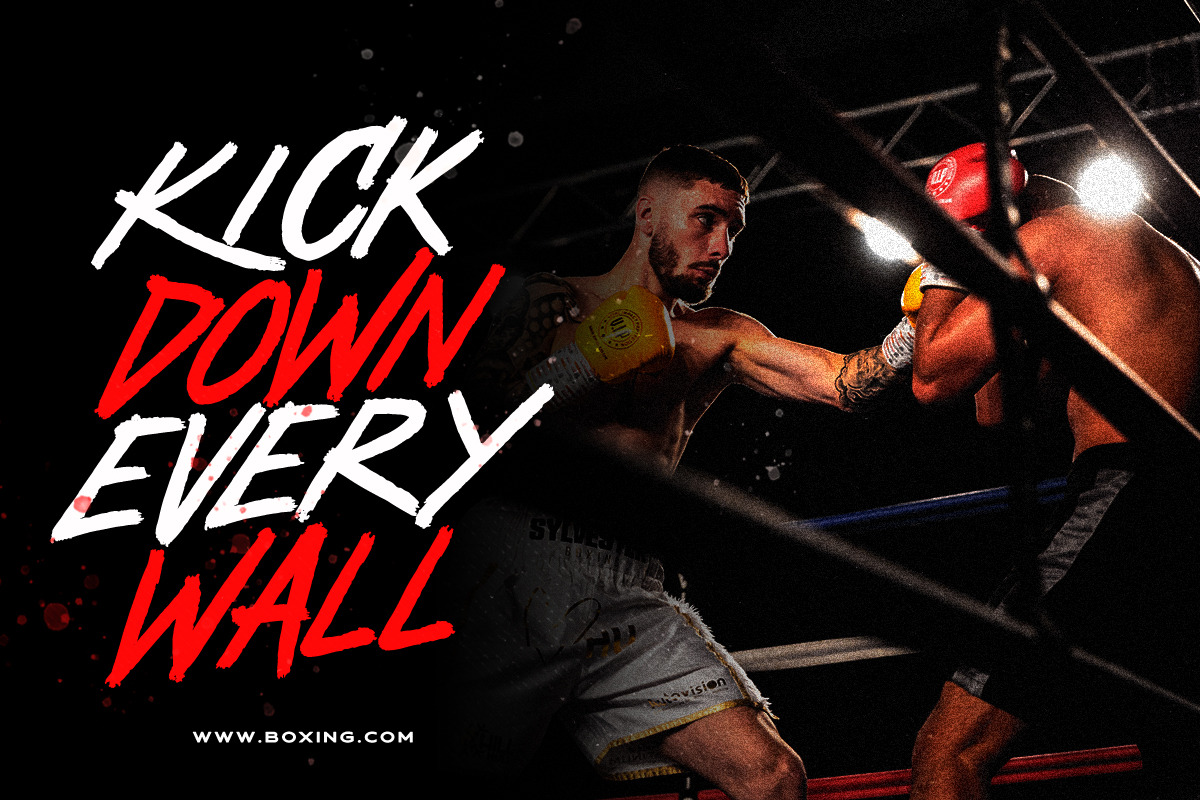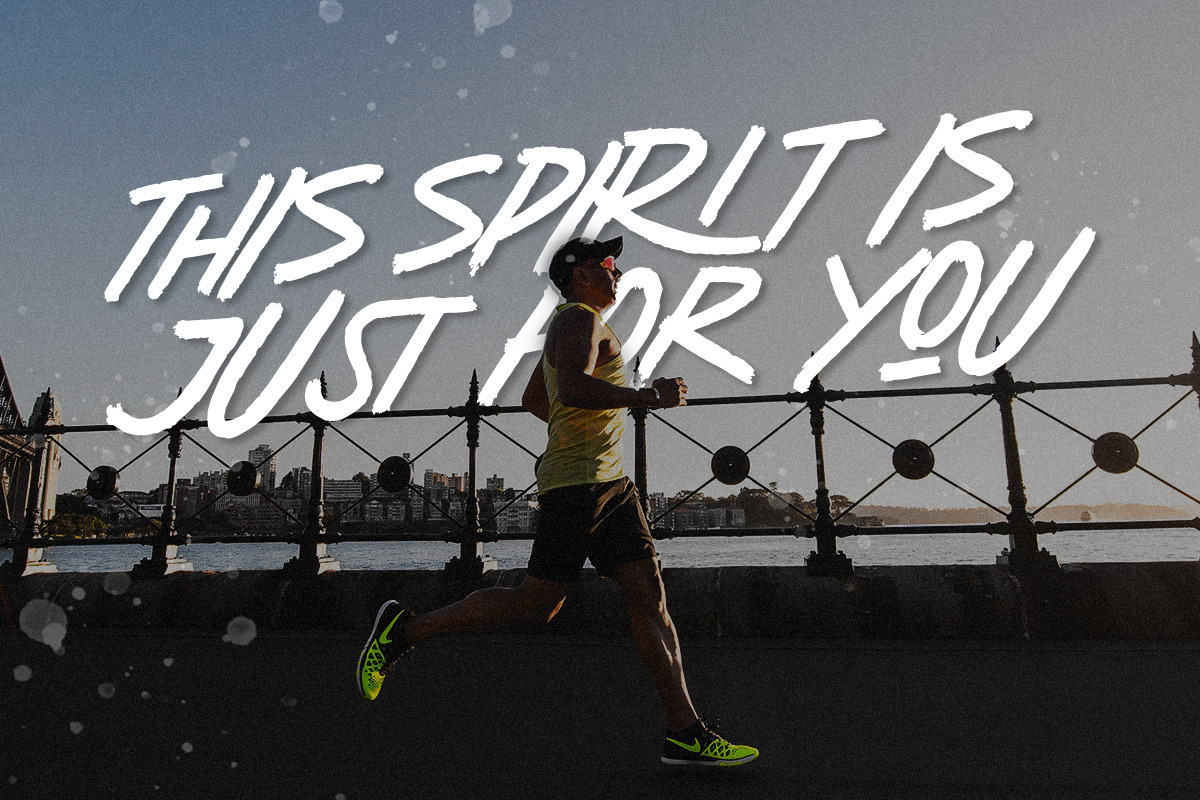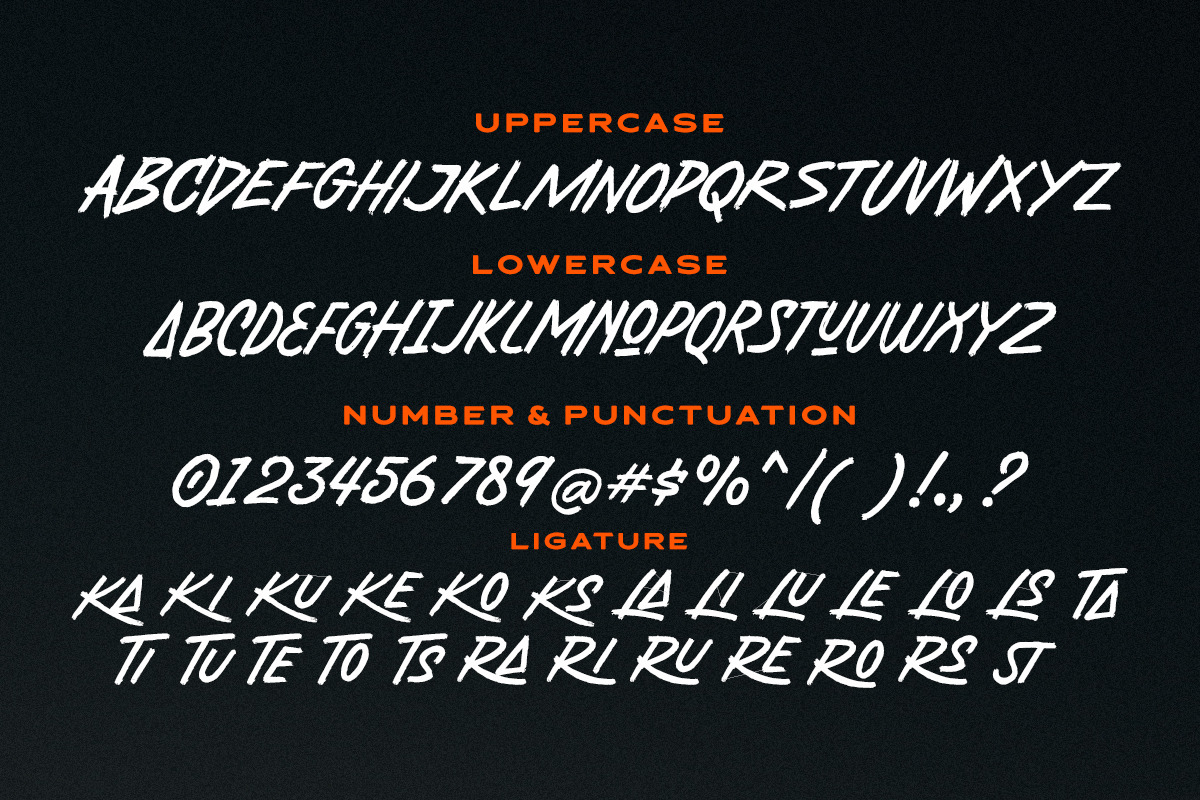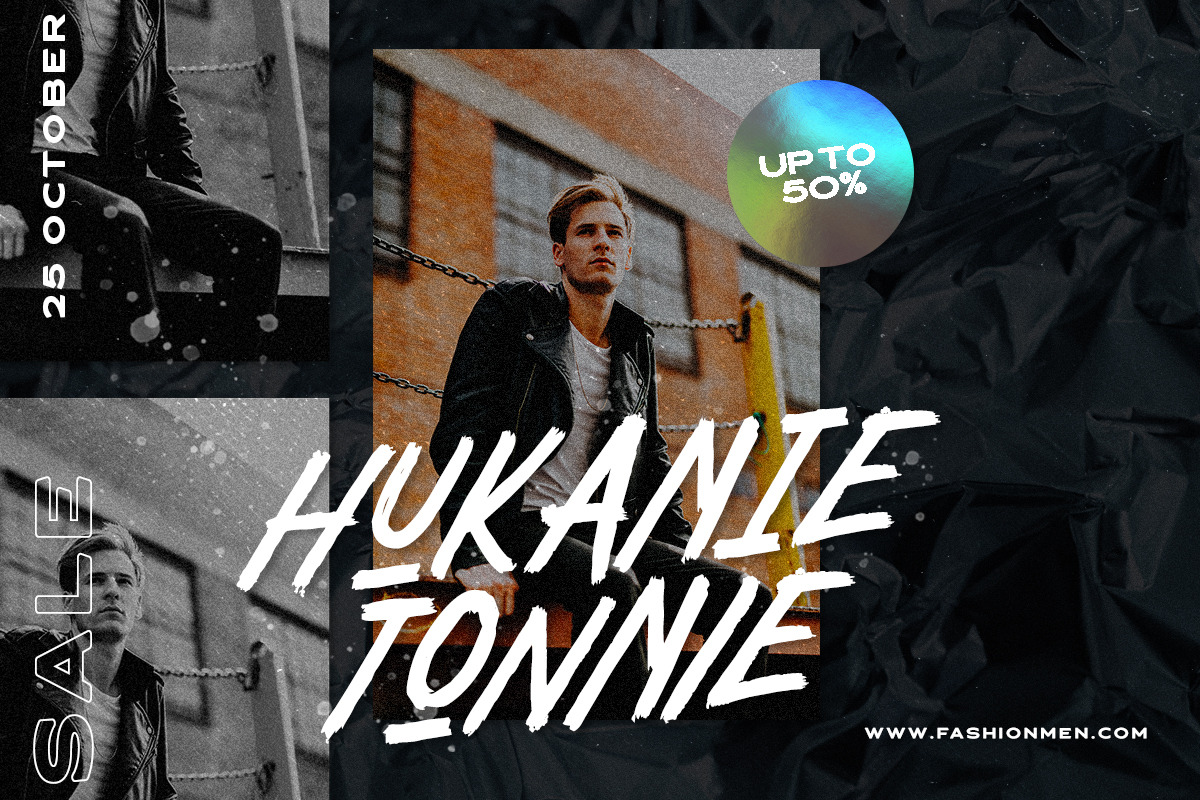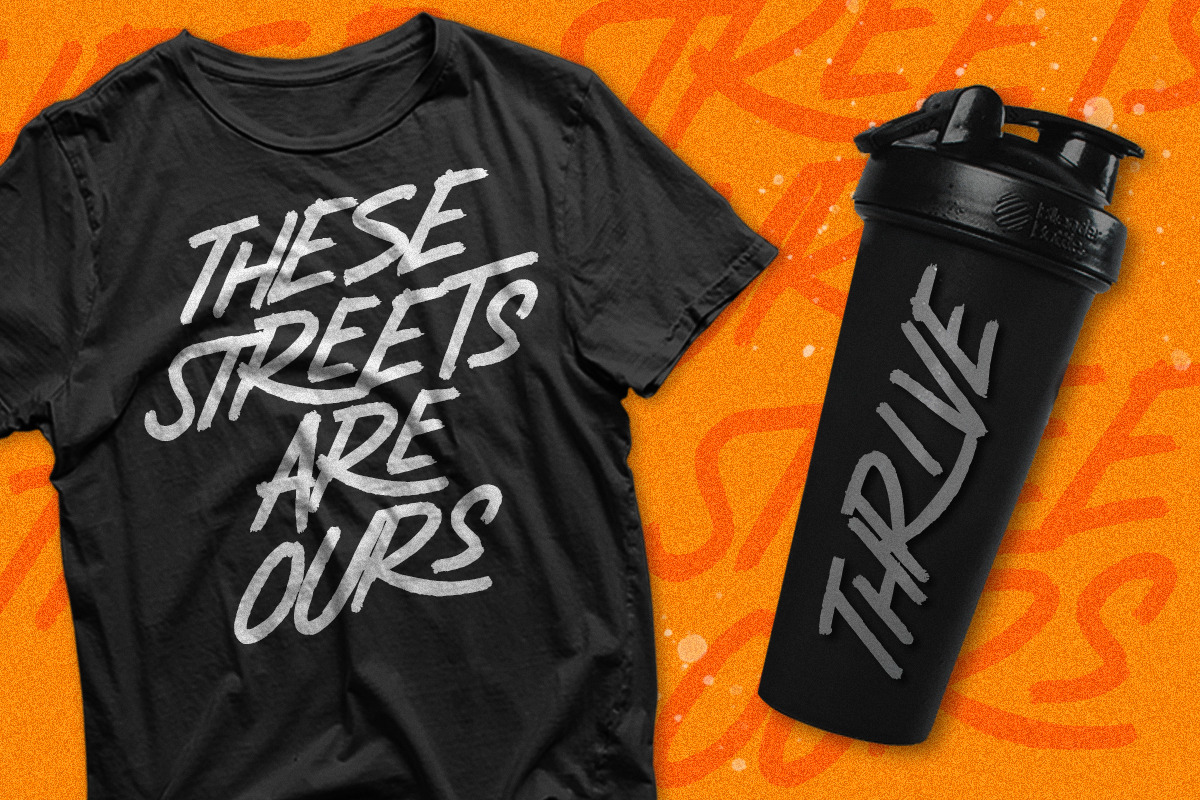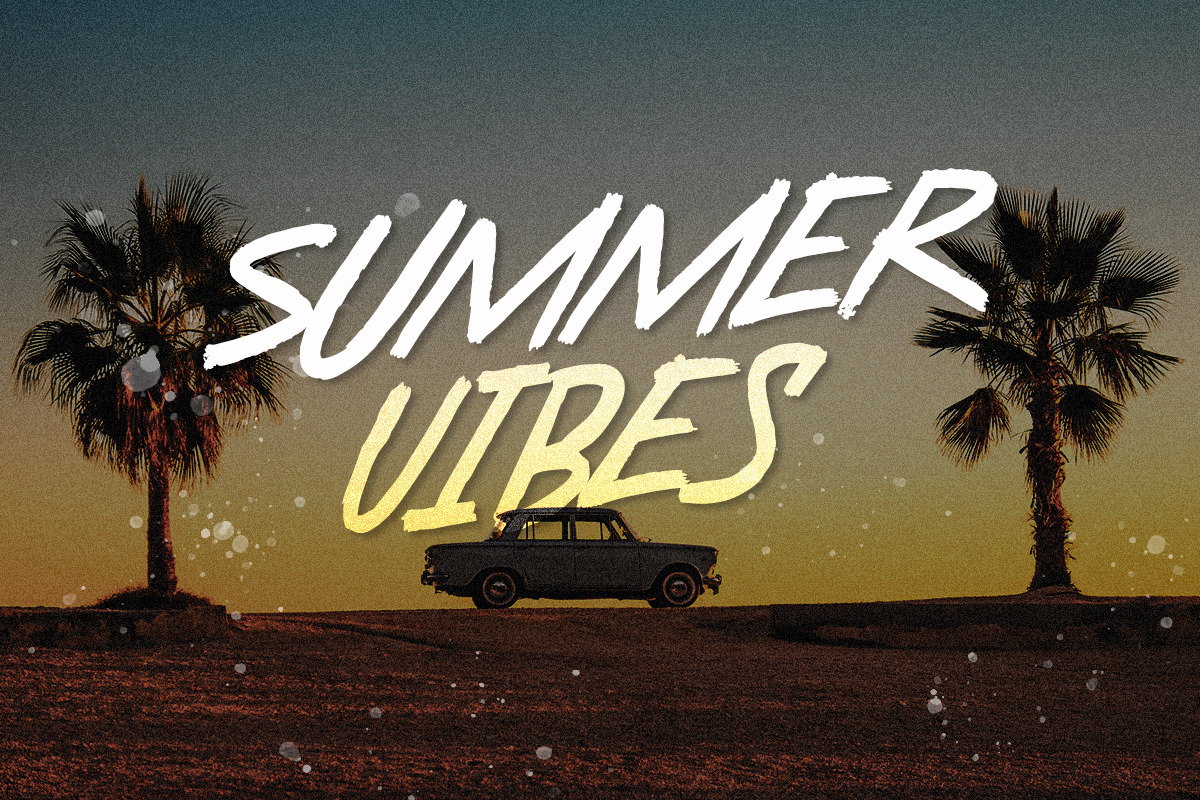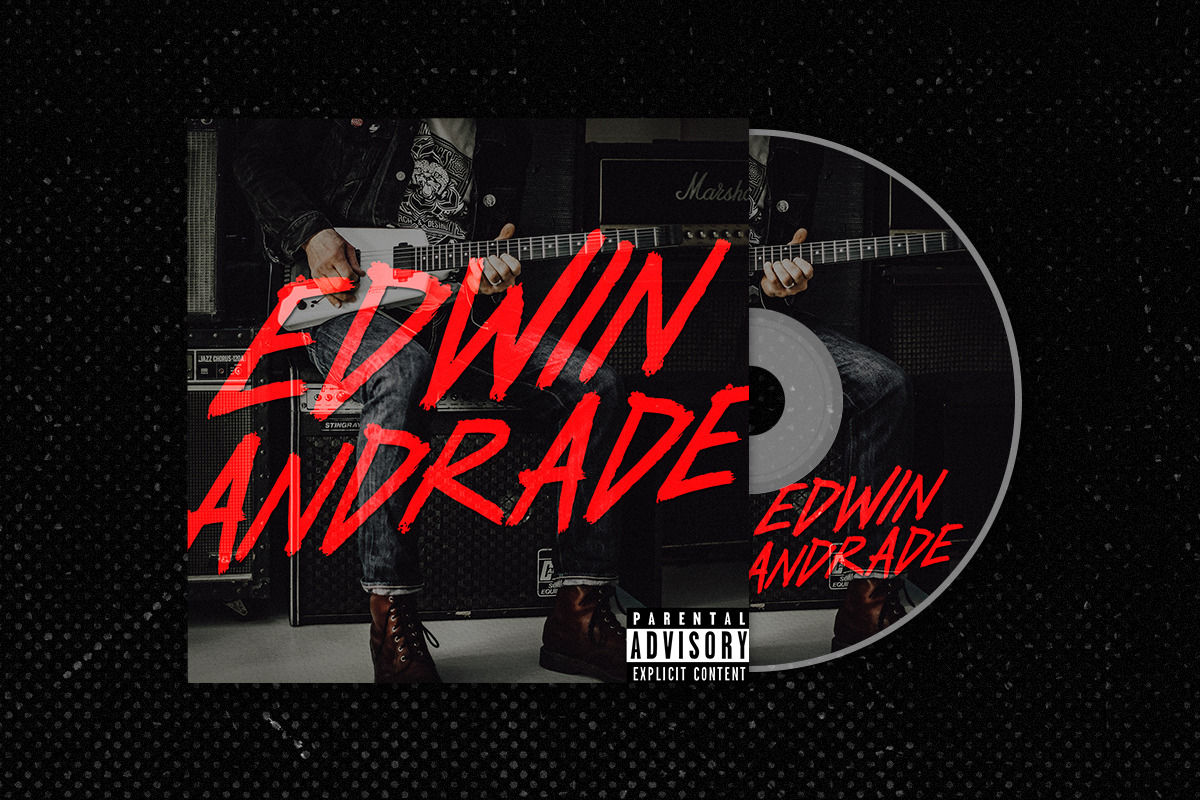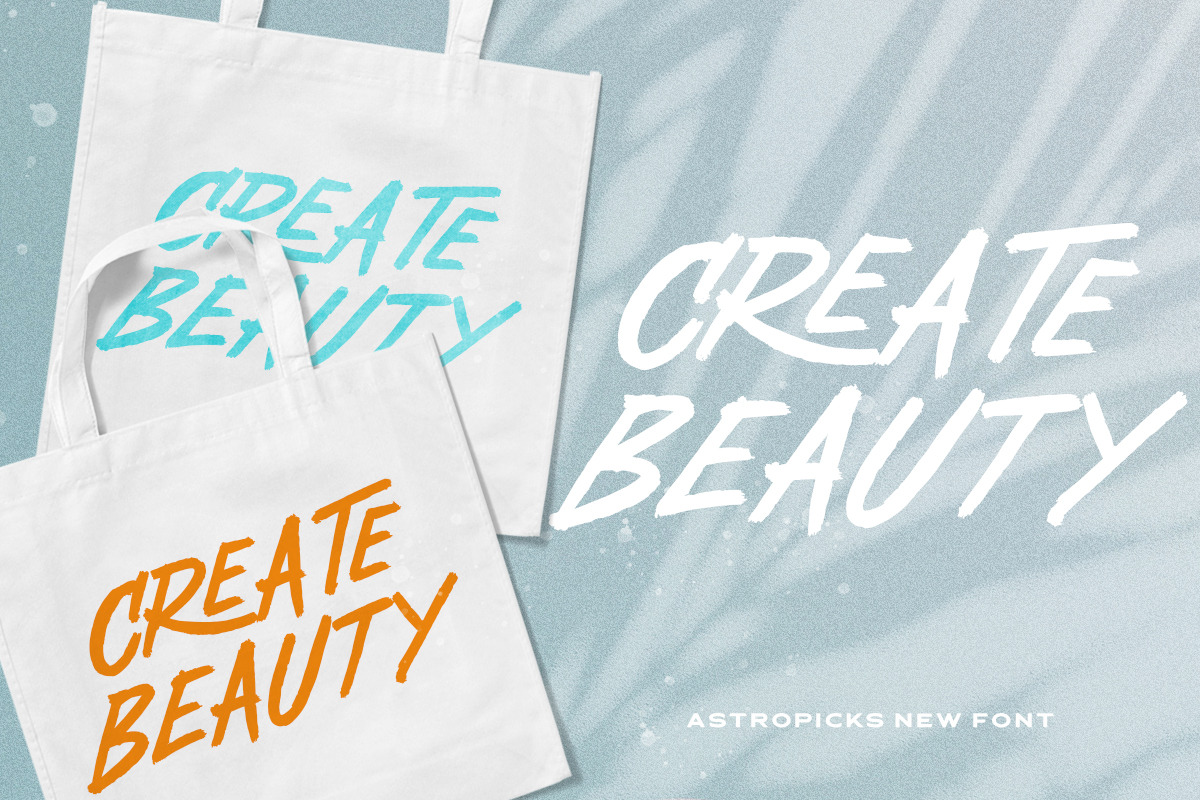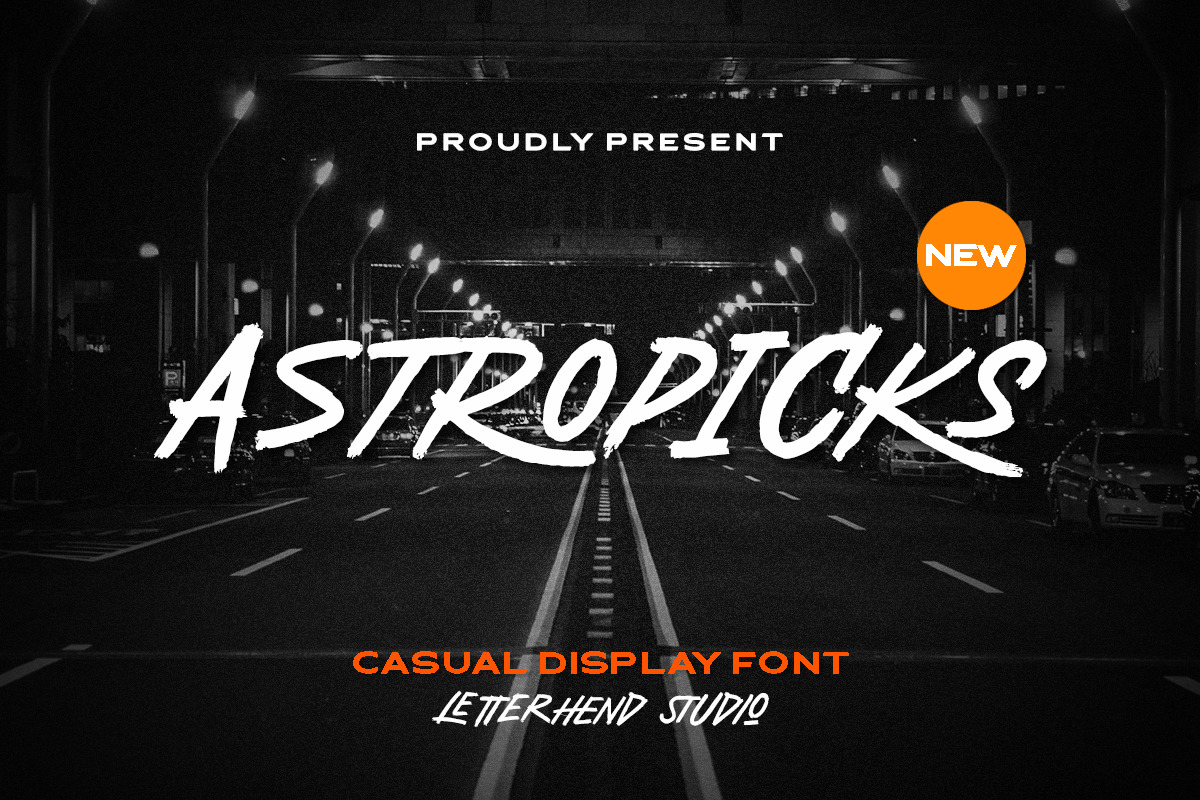
Astropicks - Casual Display Font
Astropicks is a modern and playful typeface which is purposely made for headline, display or logotype. This type of font perfectly made to be applied especially in logo, and the other various formal forms such as invitations, labels, logos, magazines, books, greeting / wedding cards, packaging, fashion, make up, stationery, novels, labels or any type of advertising purpose.
- alternates & ligatures